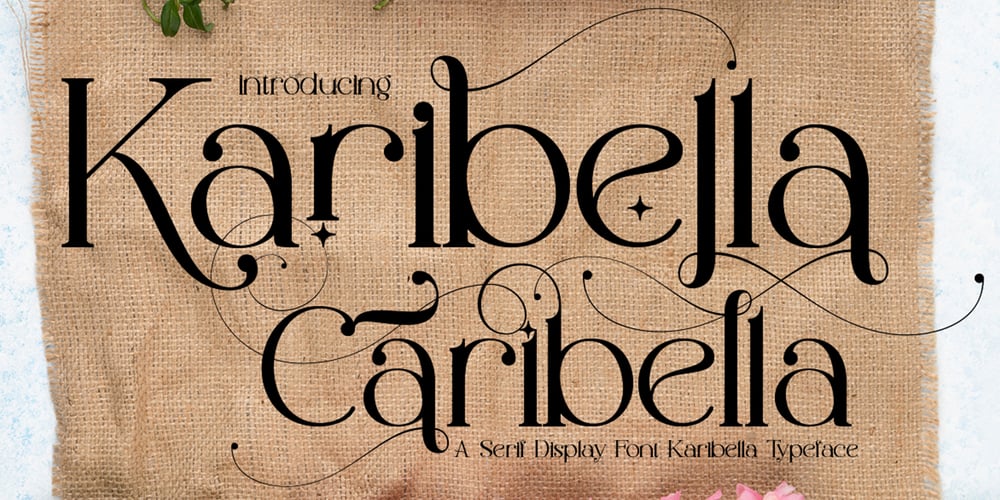
Karibella
Karibella font
Karibella Font Family was designed by Ibram Syah and published by Jehansyah. Karibella contains 1 styles and family package options. Karibella is an elegant serif font, perfect for any type of design, and with several alternatives that you can use to add a more elegant and luxurious feel, this font is also PUA coded which means you can access it with all glyphs, for packaging. this product or invitation letter would be a great choice, and so on. This font design offers and spoils anyone who sees it.Include :NumericPuntuationLatinAlternateThank You Very Much